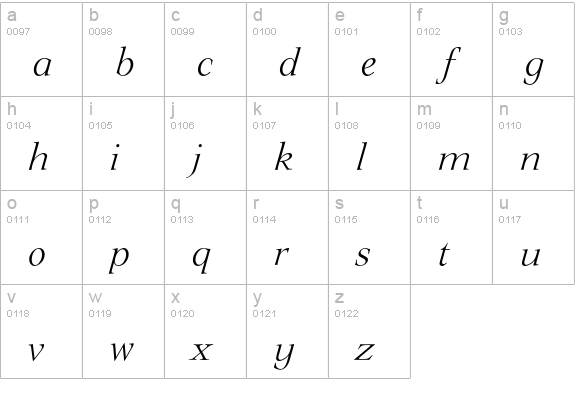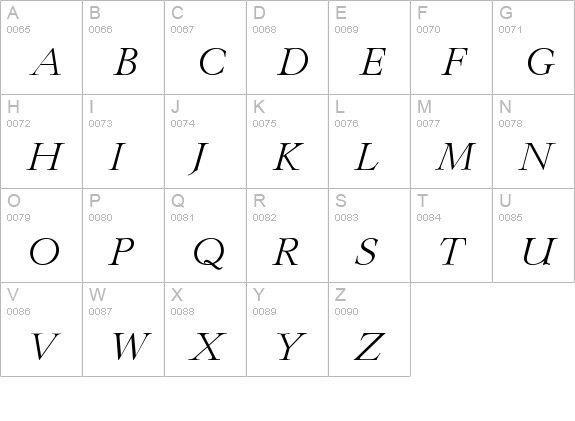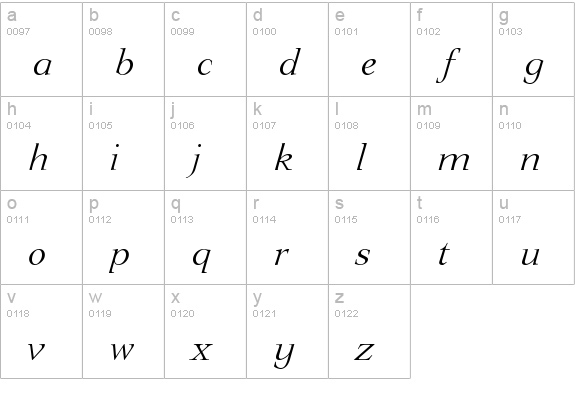
LingwoodEF-LightItalic Font Details
LingwoodEF-LightItalic font is a delicate and elegant typeface that exudes sophistication and modernity. Its light italic style adds a touch of grace to any design, making it perfect for projects that require a refined and polished look. The slender letterforms flow smoothly, creating a sense of movement and fluidity on the page. This exquisite font is not only visually appealing but also highly versatile, suitable for a wide range of applications including branding, packaging, editorial design, and more. Its subtle curves and subtle slant give it a distinctive and unique character that sets it apart from other fonts. Best of all, LingwoodEF-LightItalic font is free to download at FontsMarket.com, making it accessible to designers and creatives looking to add a touch of sophistication to their projects without breaking the bank. Whether you're working on a personal project or a client's design, this font is sure to elevate your work to new heights.